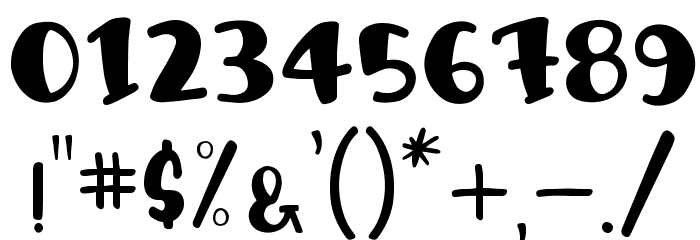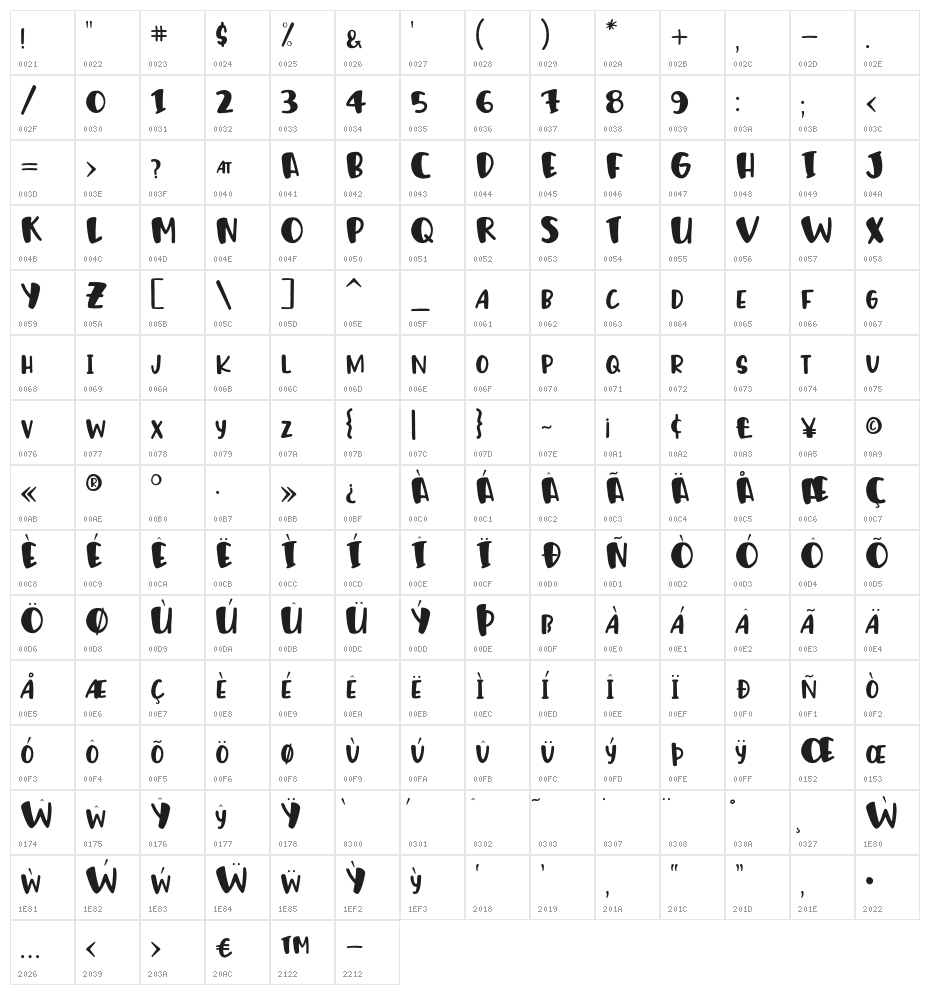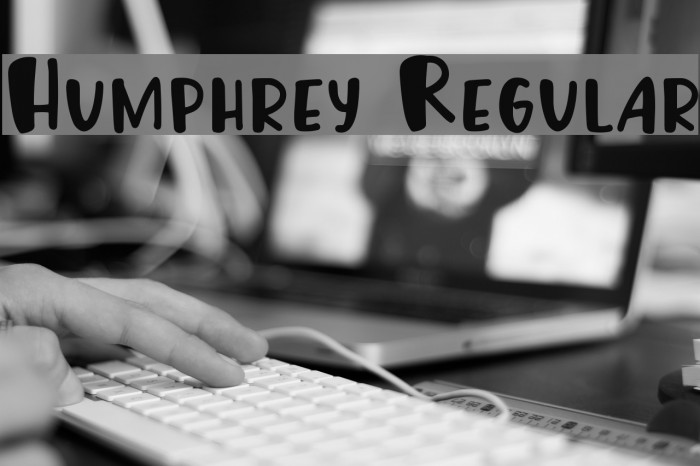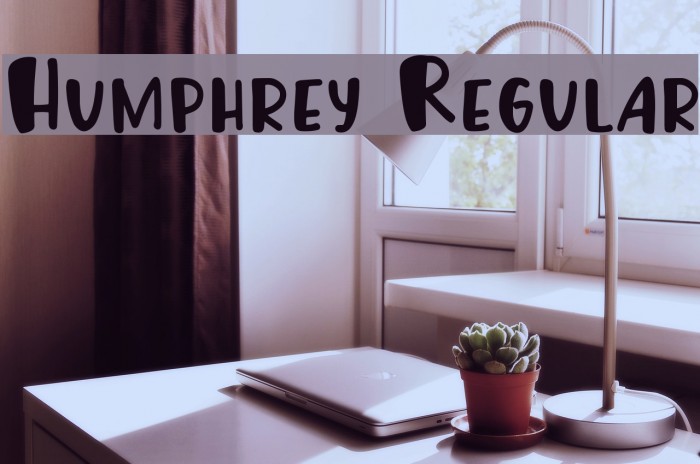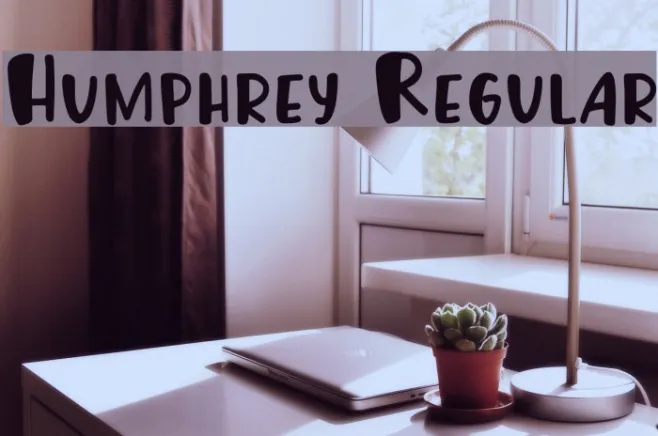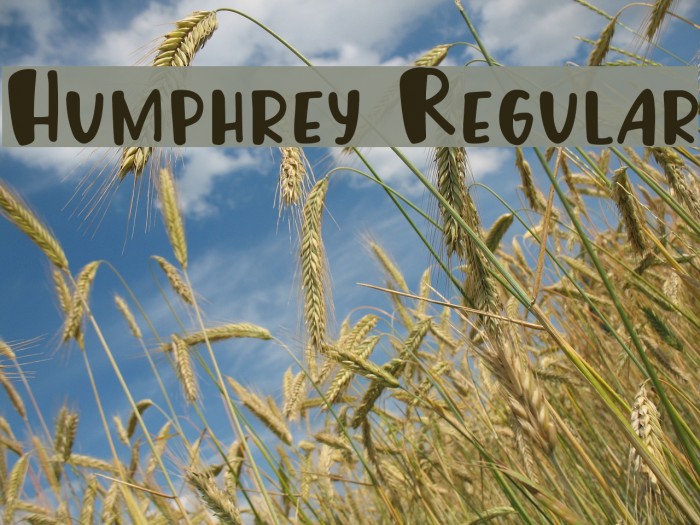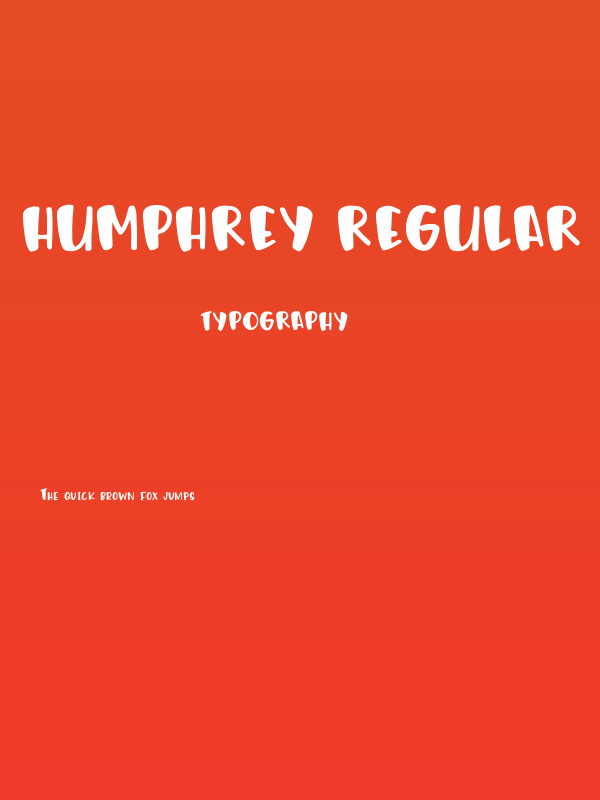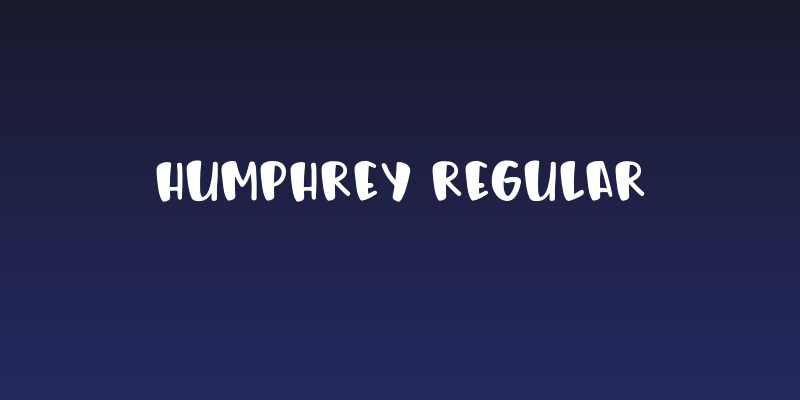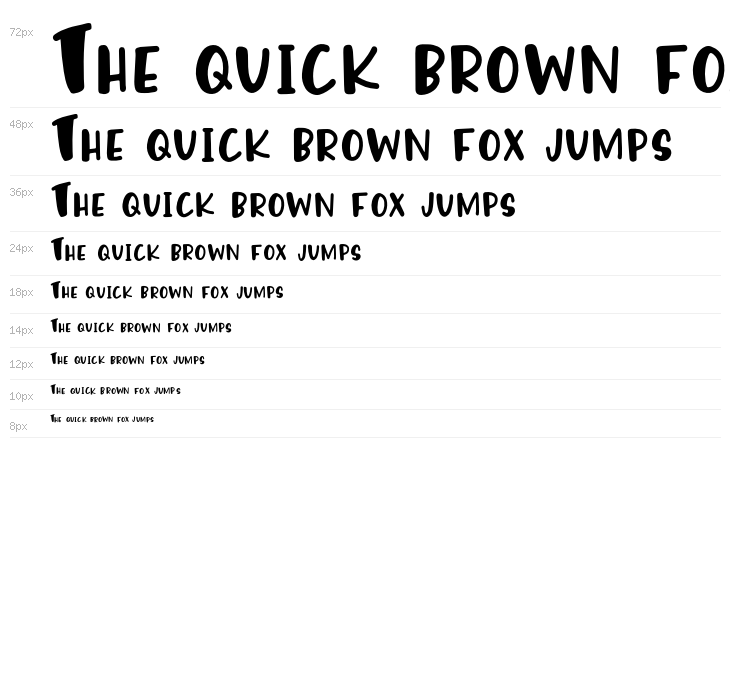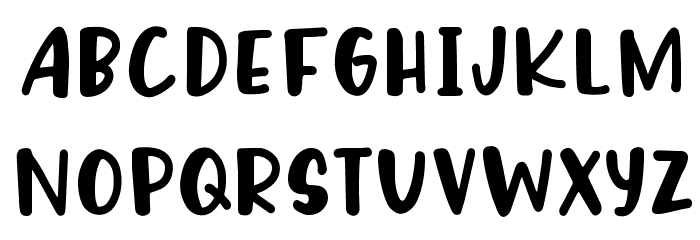
Humphrey Regular Font
Humphrey Regular Description
This font features a playful and bold style with rounded, smooth edges that give it a friendly and approachable appearance. The characters are slightly irregular, adding a hand-drawn feel that enhances its charm. The uppercase and lowercase letters maintain a consistent weight, contributing to a cohesive look. The numerals and special characters are designed with the same playful aesthetic, making them easily readable while retaining the font's unique personality. This font is well-suited for projects that require a touch of whimsy and creativity.